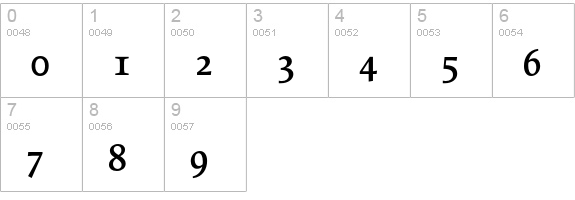
Proforma-SemiBold is a sub-bold, structured variant in the Proforma typeface family \xE2\x80\x94 well suited to sub-headlines and emphasised passages.
Proforma-SemiBold is a versatile and modern font that exudes confidence and sophistication. Its bold and stylish design makes it perfect for a wide range of design projects, from branding to editorial design. The semi-bold weight adds a touch of elegance while maintaining readability and impact. This font is available for free download at FontsMarket.com, making it easily accessible for designers and creatives looking to enhance their projects with a touch of contemporary flair. Whether you're working on a website, poster, or logo, Proforma-SemiBold is sure to make a statement and leave a lasting impression. Elevate your designs with this sleek and eye-catching typeface today.